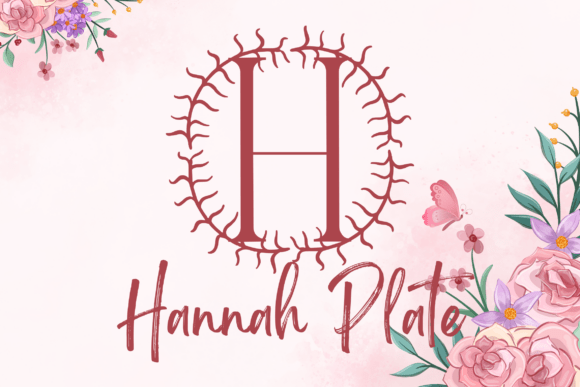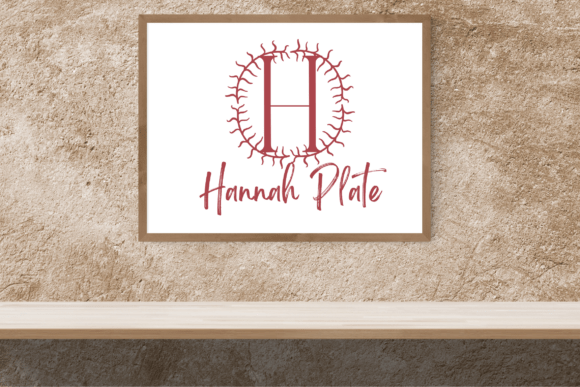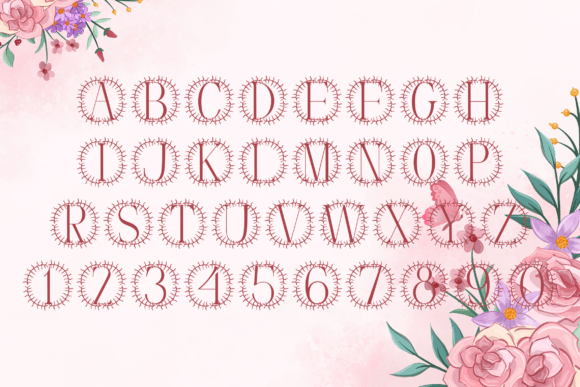
Introduction to Frondora Monogram Font
As a designer, you know the moment when a font can elevate an entire project – it’s like a breath of fresh air, a spark that ignites the creative process. For many of us, that moment comes when we stumble upon the perfect design resource to convey our message. For those seeking a touch of sophistication and elegance, we’re excited to introduce the Frondora Monogram Font.
This stunning font features uppercase initials intricately entwined with delicate leafy elements, bringing the beauty of nature to modern monogram design. With its high-quality design and versatility, Frondora Monogram Font is the perfect addition to any creative project – from wedding branding to boutique logos, stationery, and personalized gifts. And the best part? It’s available for free download, complete with a transparent background for seamless integration into your designs.
Whether you’re a seasoned designer or just starting out, Frondora Monogram Font is a valuable asset to your design toolkit, offering a unique and refined touch to your work.
Key Features of Frondora Monogram Font
- High-quality design for creative projects, including invitations, logos, and branding materials.
- Unique, hand-drawn design style that adds a touch of elegance and sophistication to any project.
Honest Review: Frondora Monogram Font
As a designer, I’m always on the lookout for high-quality design resources to elevate my creative projects. Recently, I came across the Frondora Monogram Font, and I was excited to give it a try.
- ✨ Beautiful, intricate designs that add a touch of elegance to any project.
- ✨ Easy to customize and use in various contexts, from logos to invitations.
One of the standout features of the Frondora Monogram Font is its transparent background, which makes it easy to layer and combine with other design elements. This level of flexibility is a huge plus for designers who want to create unique and visually appealing designs.
- ⚠️ The font may not be suitable for all types of projects, particularly those that require a bold or sans-serif font style.
- ⚠️ Some users may find the intricate details of the font difficult to read or reproduce in certain contexts.
Overall, I’m impressed with the Frondora Monogram Font and would recommend it to designers who are looking for a high-quality, creative design resource. While it may have some limitations, its unique style and versatility make it a valuable addition to any design library.
The Frondora Monogram Font is a high-quality design resource perfect for adding a touch of elegance to your creative projects. This free download offers a transparent background, making it easy to integrate into your designs.
The Frondora Monogram Font is perfect for a variety of creative projects, including wedding invitations, business cards, and branding materials. Its elegant design makes it an ideal choice for formal events and professional settings.